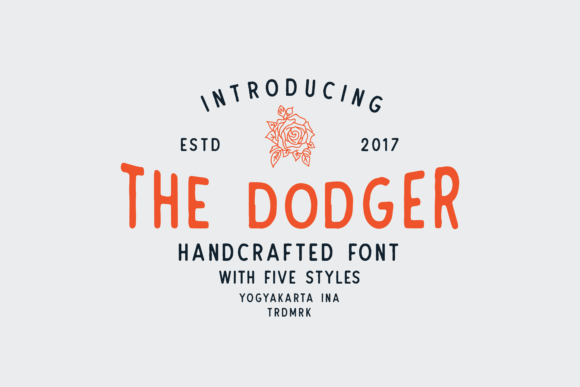
Introducing The Dodger Font, a captivating collection of five sans serif fonts that will effortlessly elevate your design projects. Created by Martype.Co, this font family is the ultimate tool to unleash your creativity and leave a lasting impression.
With its eye-catching appeal, The Dodger Font is the perfect choice for designers, marketers, and creatives alike. Each font within the collection offers a unique style and personality, allowing you to convey emotion and captivate your audience effortlessly.
Whether you're designing a logo, crafting social media graphics, or working on a website, The Dodger Font will add a touch of elegance and sophistication to your work. Its versatility knows no bounds, making it suitable for various design projects across different industries.
Experience the power of The Dodger Font as it effortlessly enhances your designs. From sleek and modern to bold and impactful, this font family offers endless possibilities to bring your vision to life. Let your creativity soar as you explore the vast range of options within this collection.
The Dodger Font is not just visually stunning; it also boasts a keyword-rich foundation, ensuring that your content ranks high in search engine results. By incorporating this font into your designs, you are not only creating visually appealing content but also optimizing it for maximum visibility.